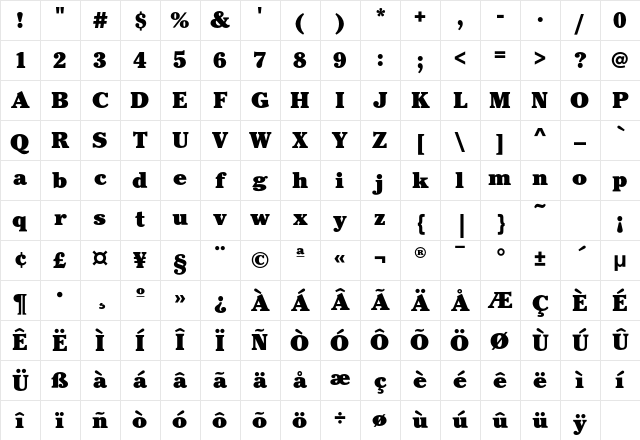
CheltenhamEF-Ultra Regular
Design Context for CheltenhamEF-Ultra
CheltenhamEF-Ultra is a composed and adaptable typeface that performs quietly and consistently across a wide range of design contexts.
Pro Tip: Use CheltenhamEF-Ultra in both headline and body roles to test its range before committing to a single application.